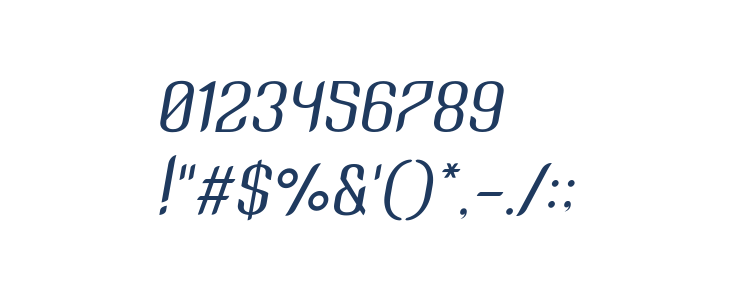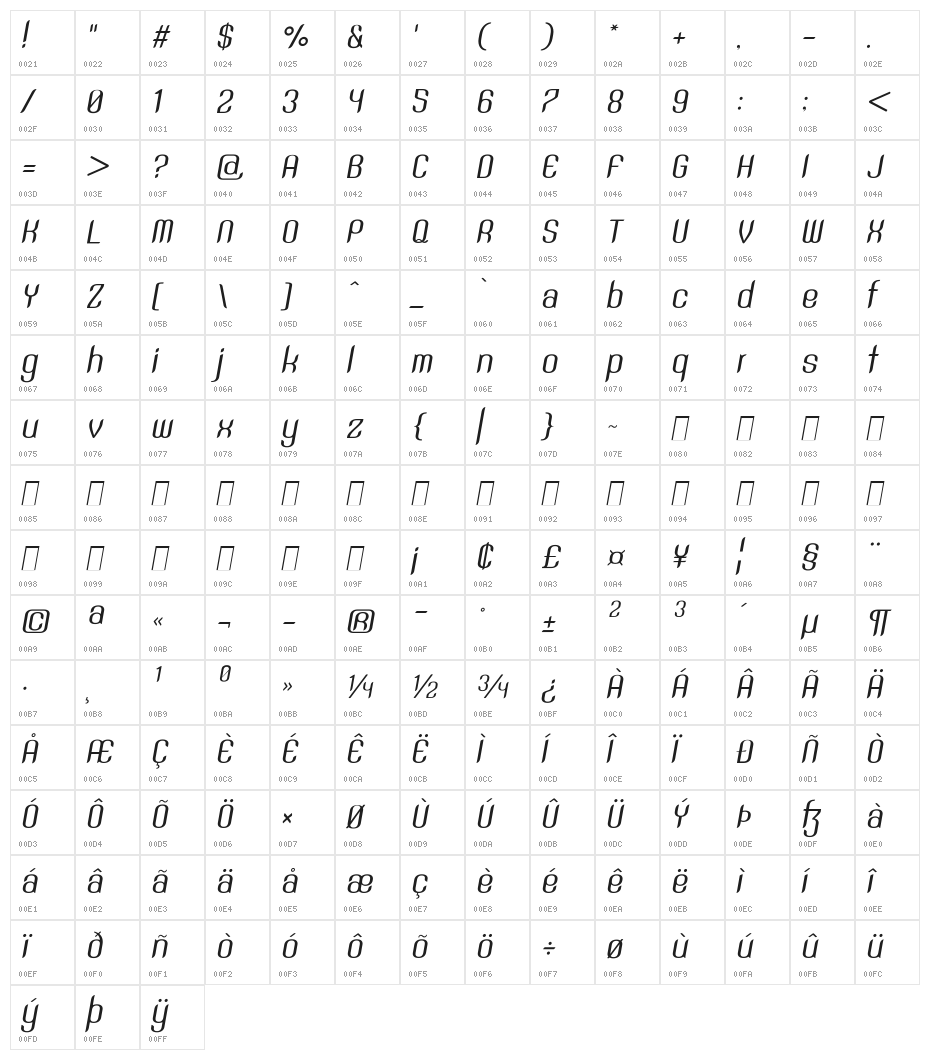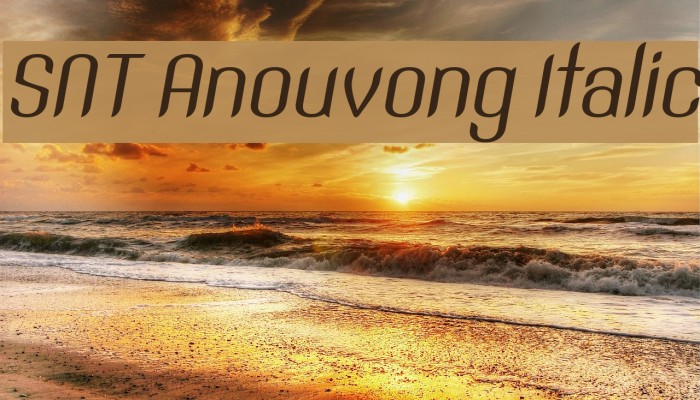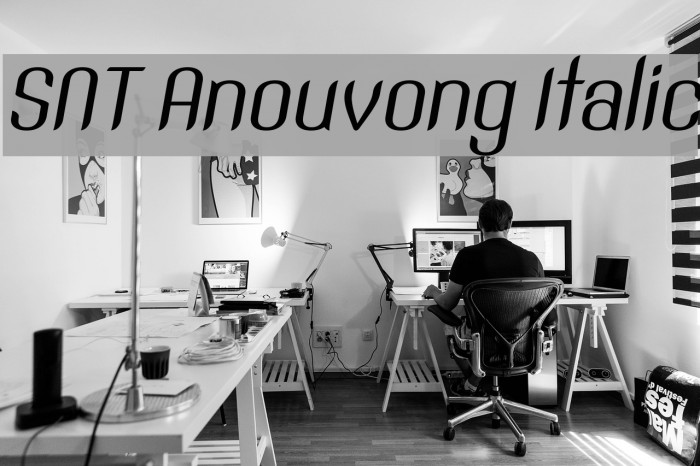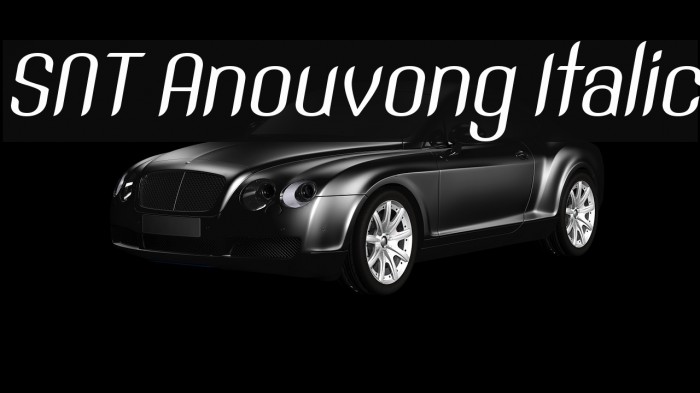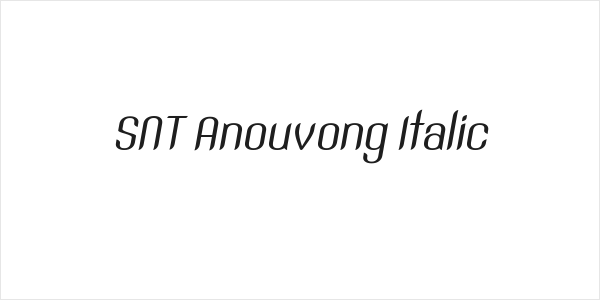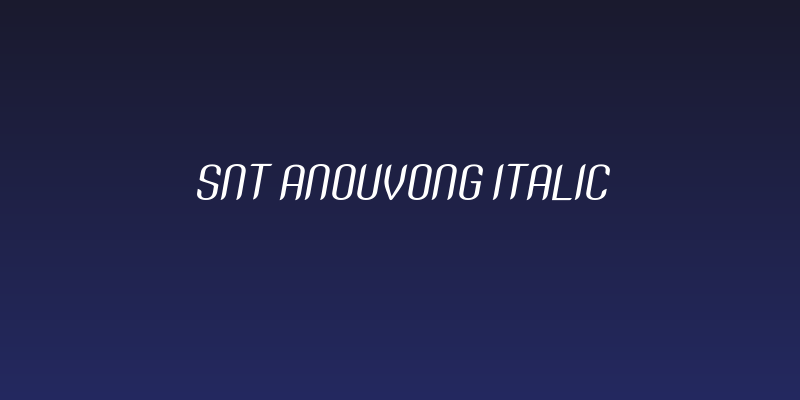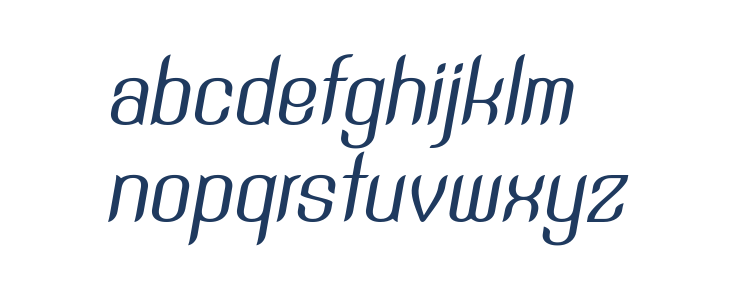
SNT Anouvong Italic Font
SNT Anouvong Italic Description
This font features a sleek, italicized style with smooth curves and a modern aesthetic. The characters are slightly elongated, giving them a dynamic and fluid appearance. The uppercase letters maintain a consistent height, while the lowercase letters exhibit a gentle slant, enhancing the italic effect. The numerals are well-proportioned, aligning seamlessly with the overall design. Special characters are distinct and maintain the font's cohesive style. The font's clean lines and contemporary look make it suitable for a variety of design applications.
| Proposed Projects | Ideal for branding, advertising, and editorial design projects that require a modern and stylish touch. |